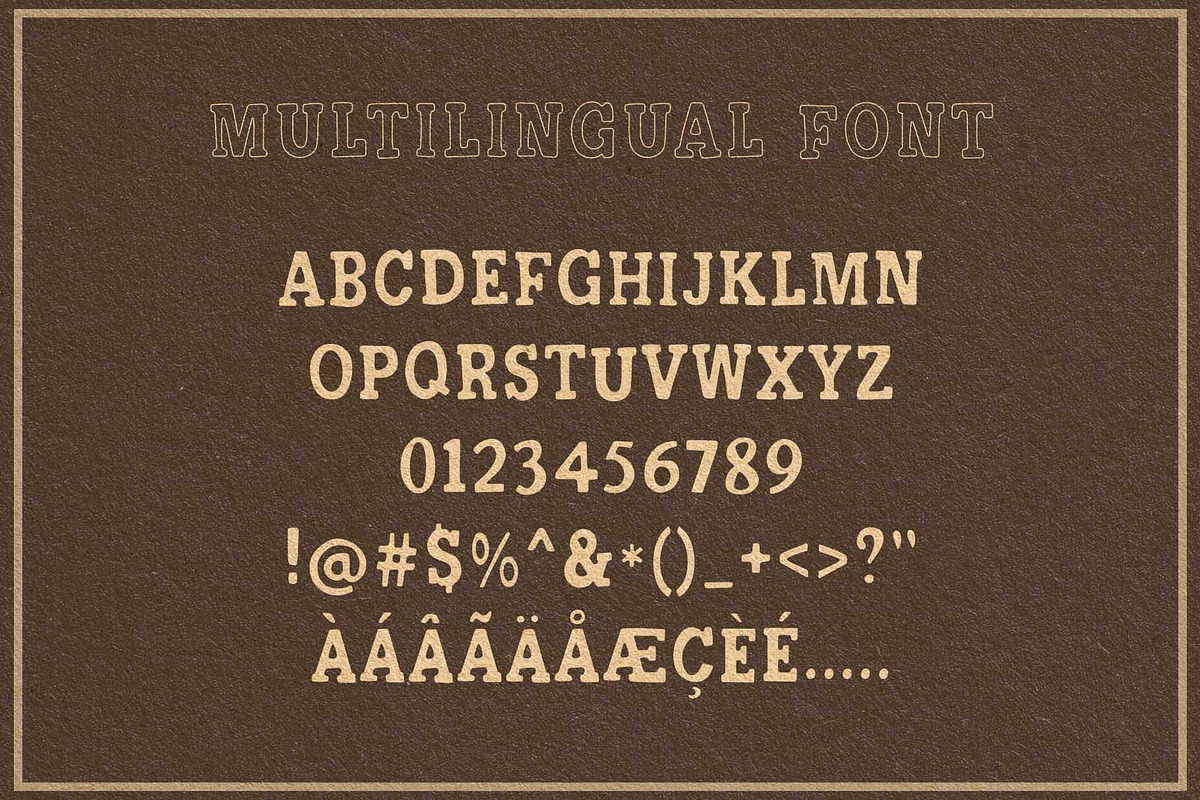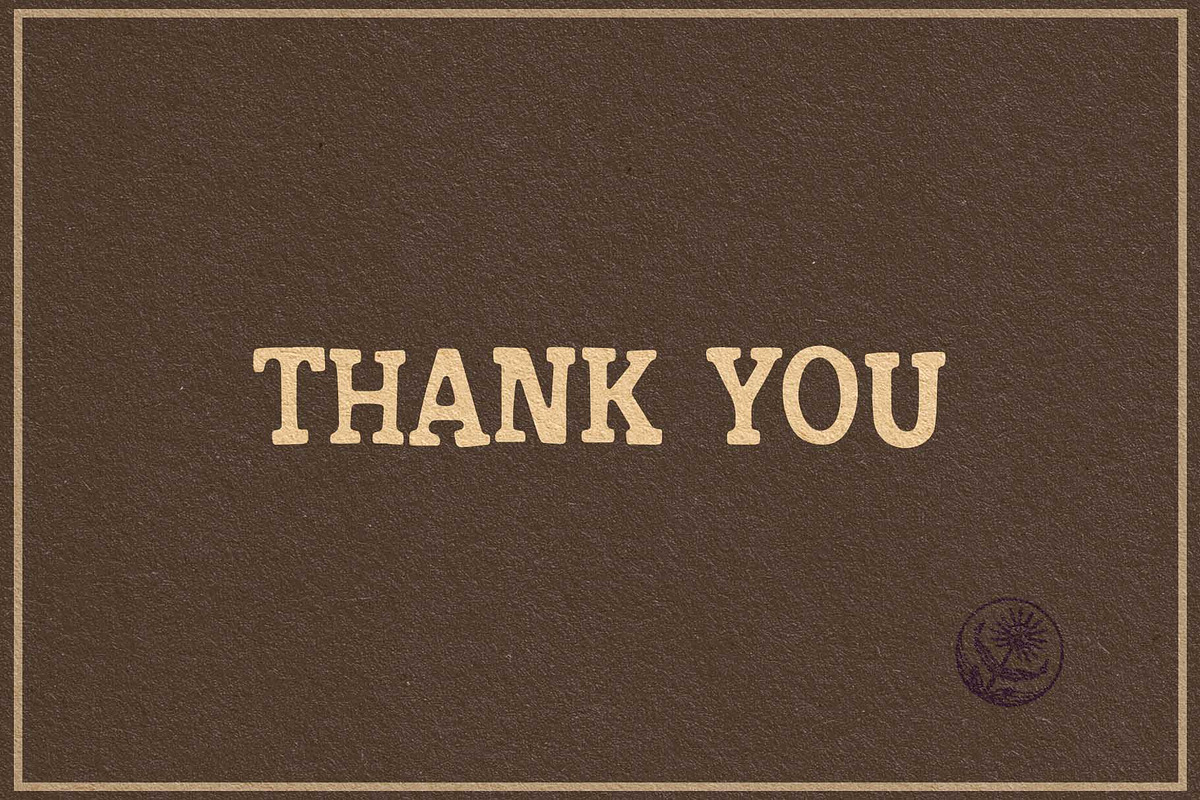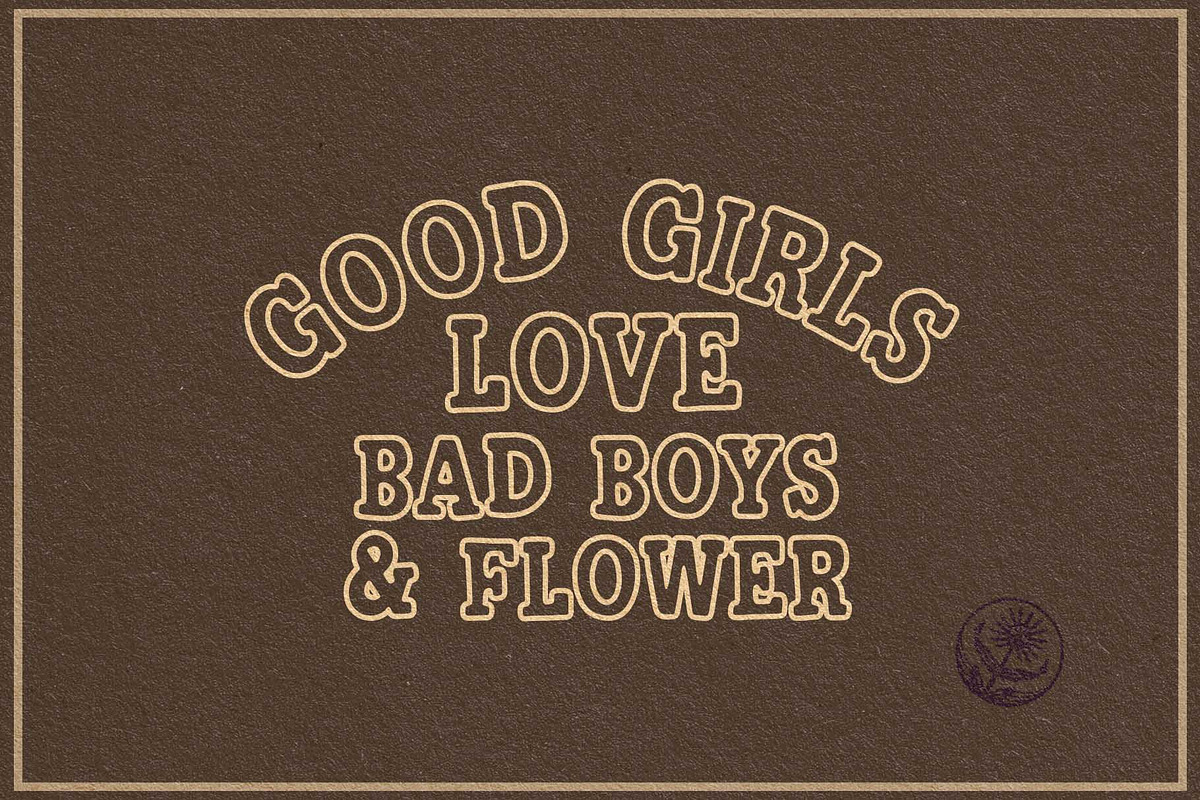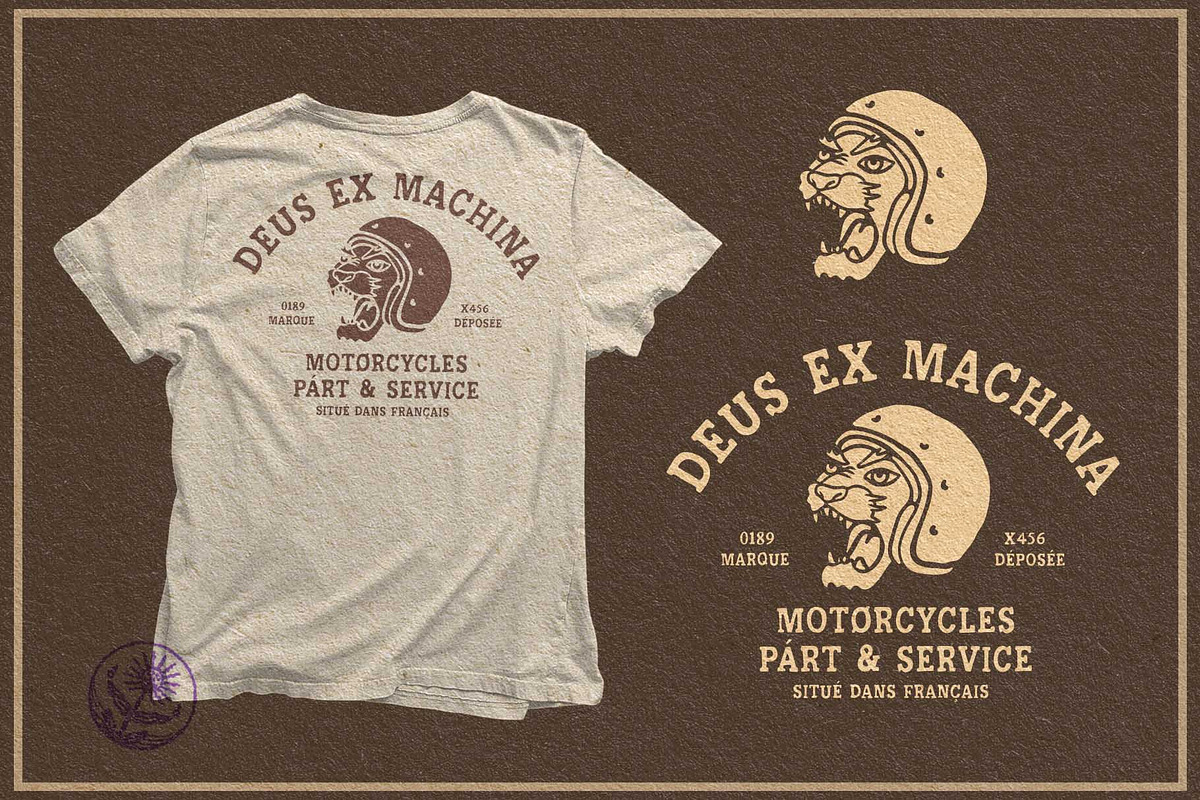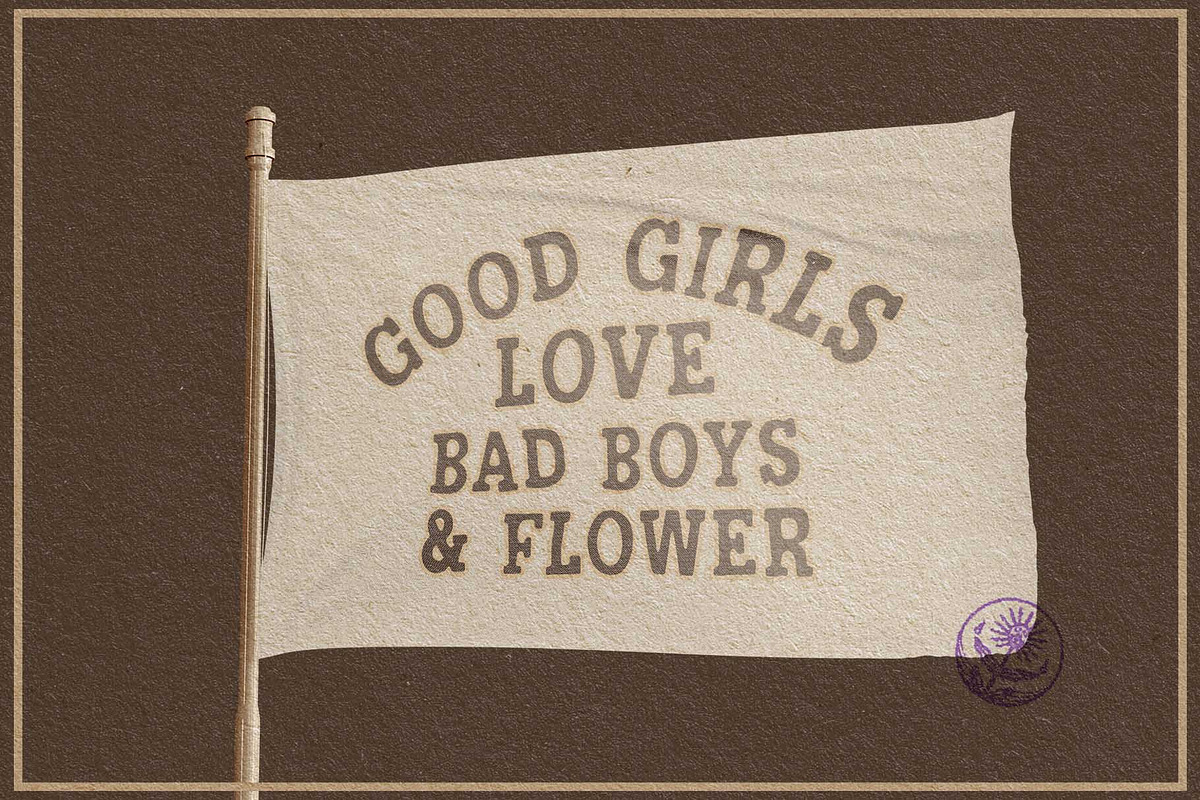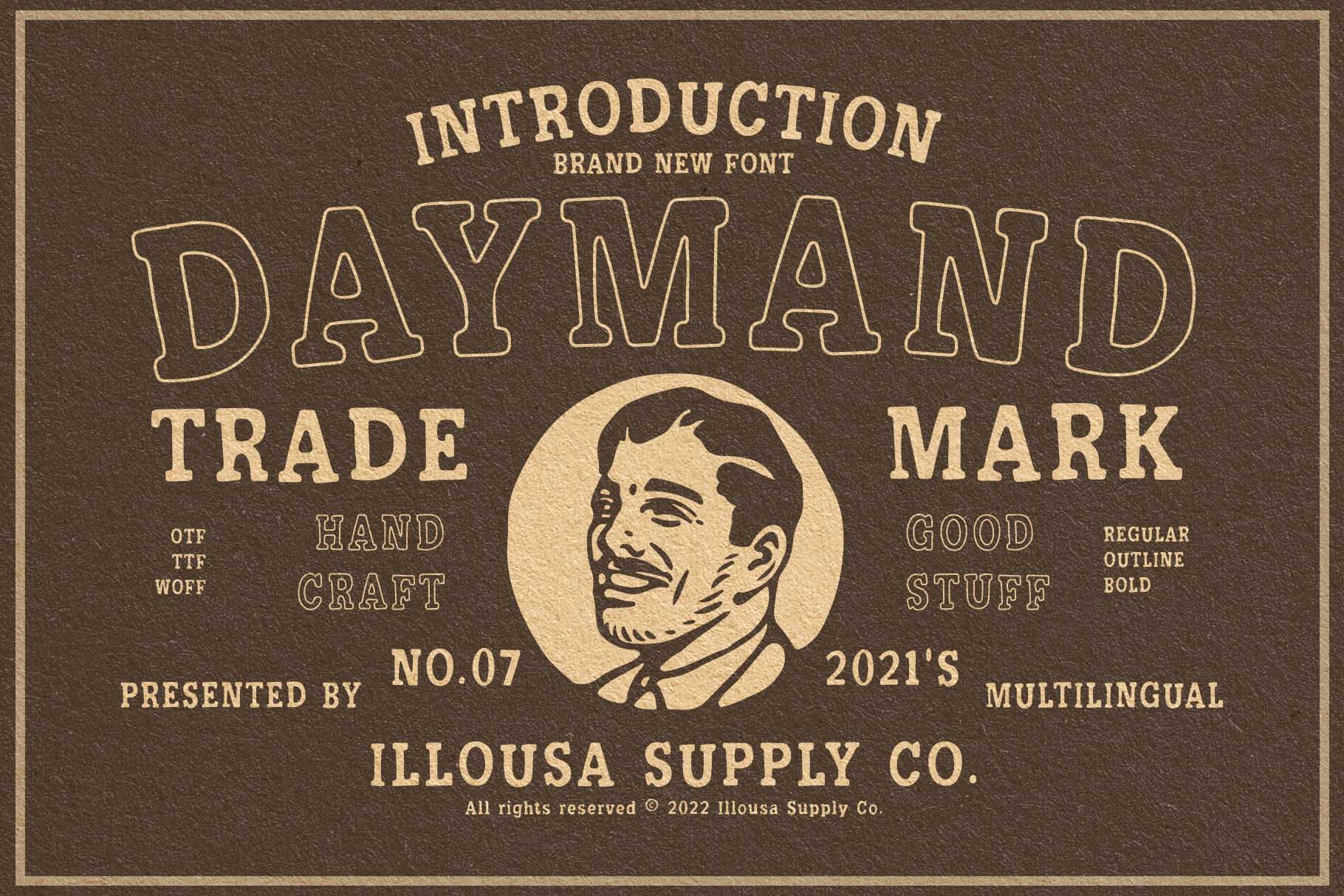
Daymand - Serif Typeface
Introducting Daymand - An Handdrawn serif typeface with simple vintage stylistic alternates to choose. Its minimalistic works wonderfully for brandings like logos, graphic tee, headlines, posters, packaging, and many more! Authenticity is Handdrawn! Thanks. Have a nice day and create something every day with your imagination.!!!!